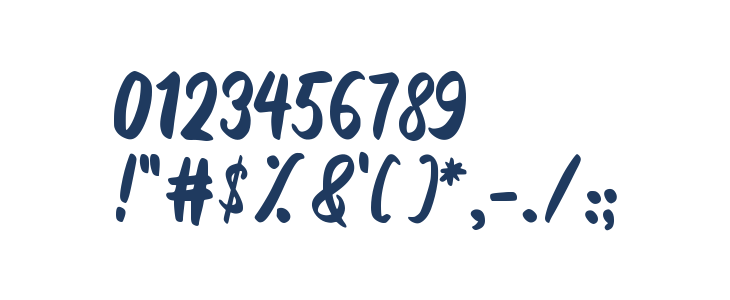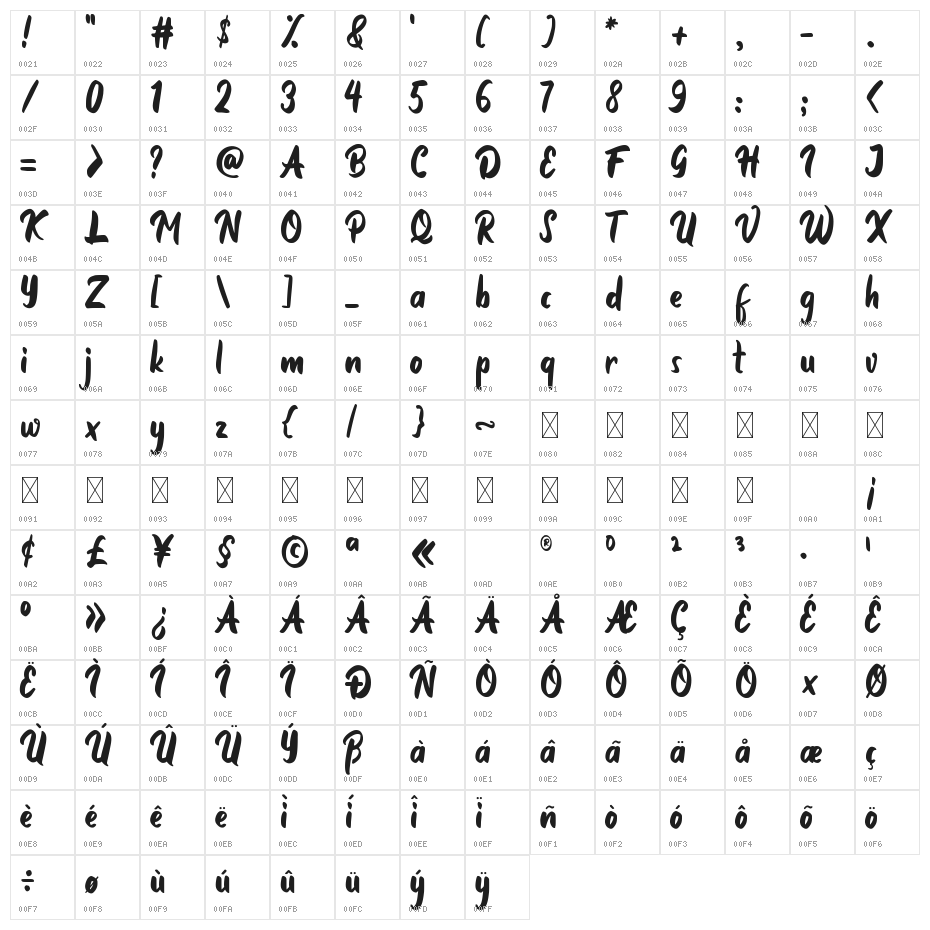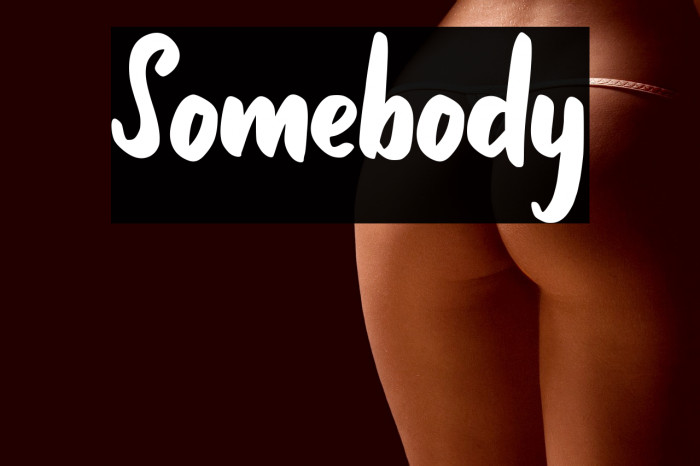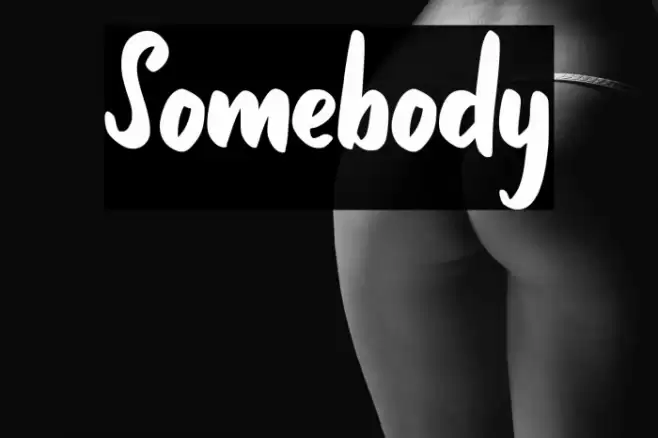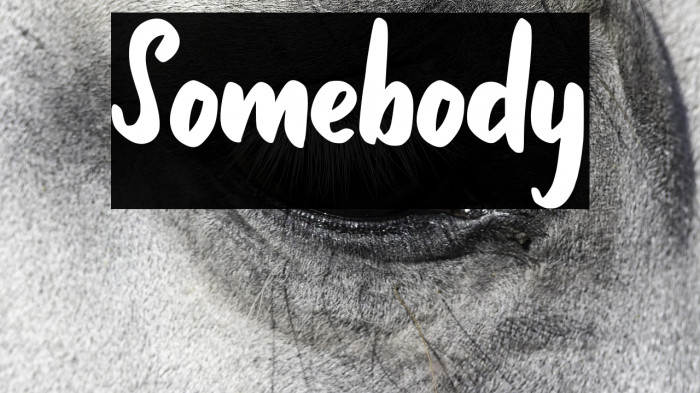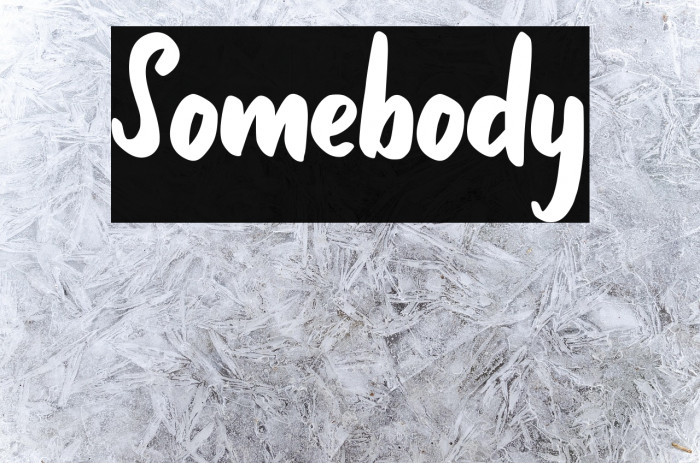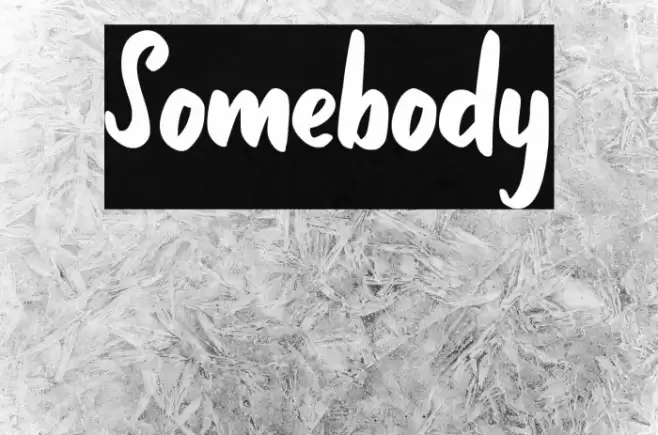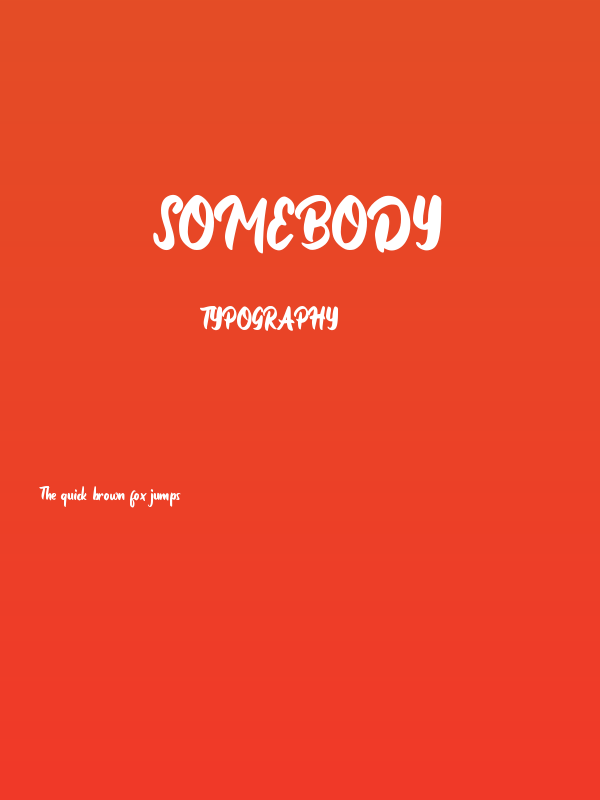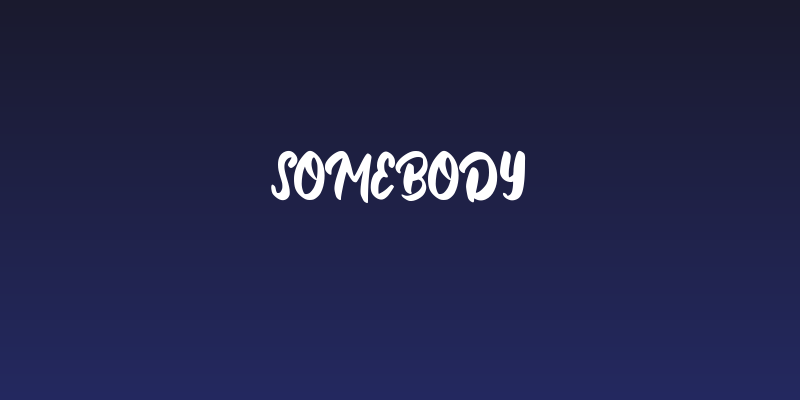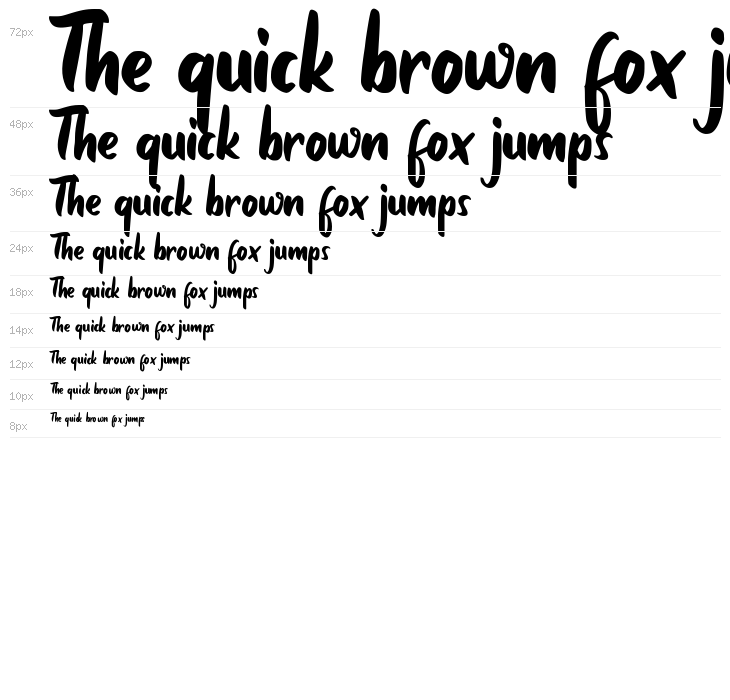
Somebody Font
This font features a bold and dynamic script style with a playful and energetic flair. The characters are crafted with a brush-like appearance, giving them a hand-drawn, organic feel. The uppercase letters are slightly larger and more pronounced, while the lowercase letters maintain a consistent flow and rhythm. The numerals and special characters are designed to match the overall aesthetic, ensuring a cohesive look. The strokes are thick and rounded, providing a sense of warmth and approachability. This font is ideal for projects that require a lively and informal touch.